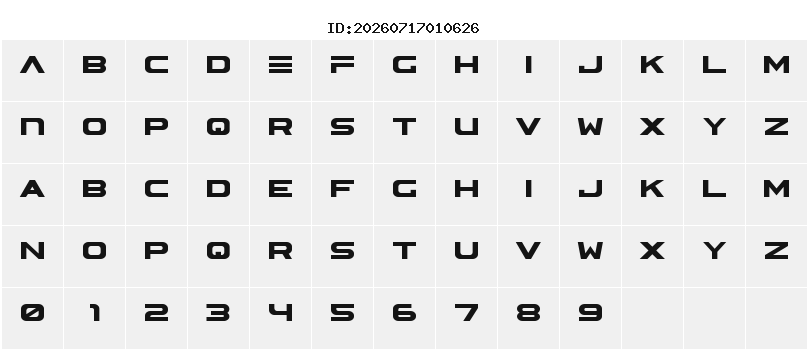
ASTERA Preview
• Font Name: ASTERA
• Full Font Name: ASTERA
• Designer: Nick Polyarush
• Description: I Like Pie !
About ASTERA.ttf
ASTERA.ttf is a modern, elegant sans-serif font designed for ultimate readability and visual harmony. Perfect for branding, headlines, web design, and print materials.